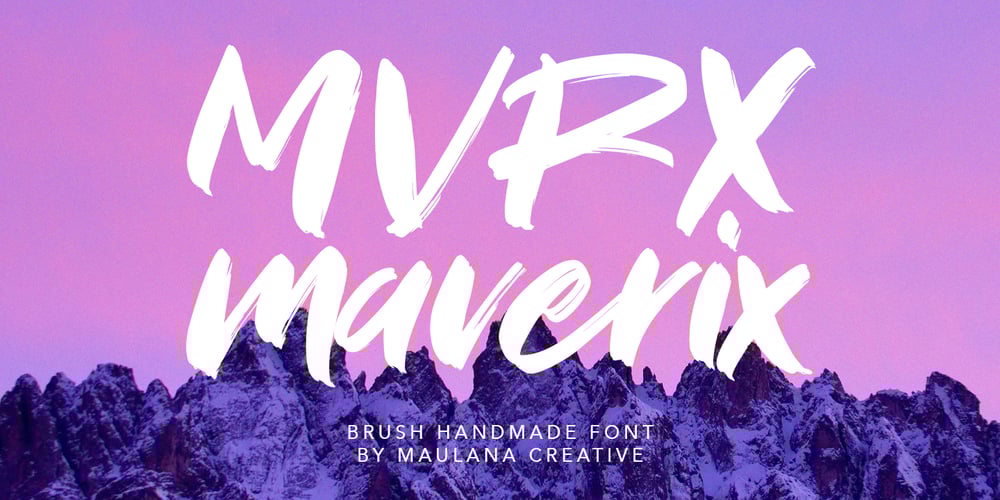
MVRX maverix Font Family was designed by Gilang Maulana and published by Maulana Creative. MVRX maverix contains 1 styles and family package options. MVRX Maverix Brush FontGive your designs an authentic brush handcrafted feel. “MVRX Maverix Brush Font” is perfectly suited to signature, stationery, logo, typography quotes, magazine or book cover, website header, flyer, clothing, branding, packaging design and more.Thanks for use this font.MaulanaCreative